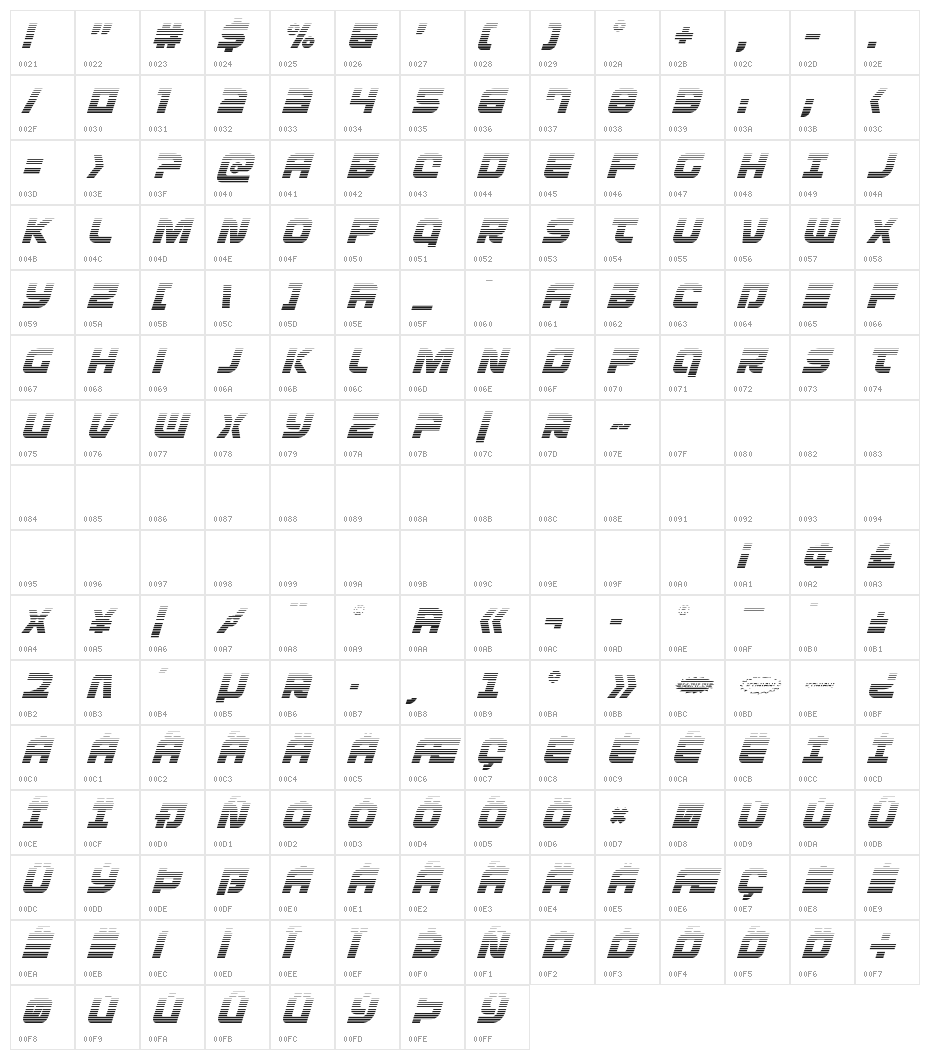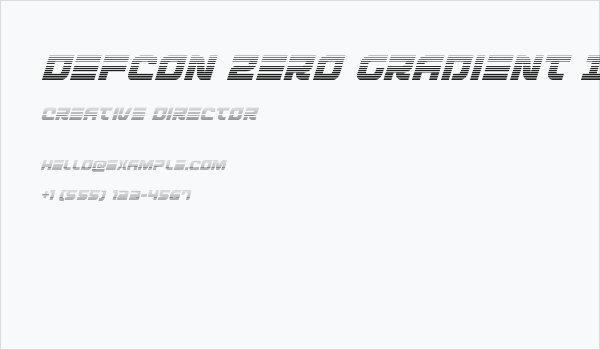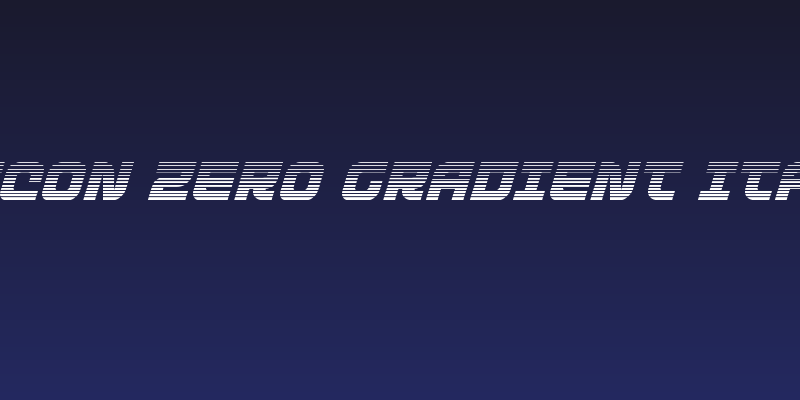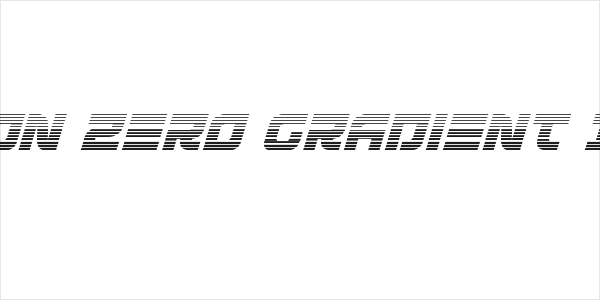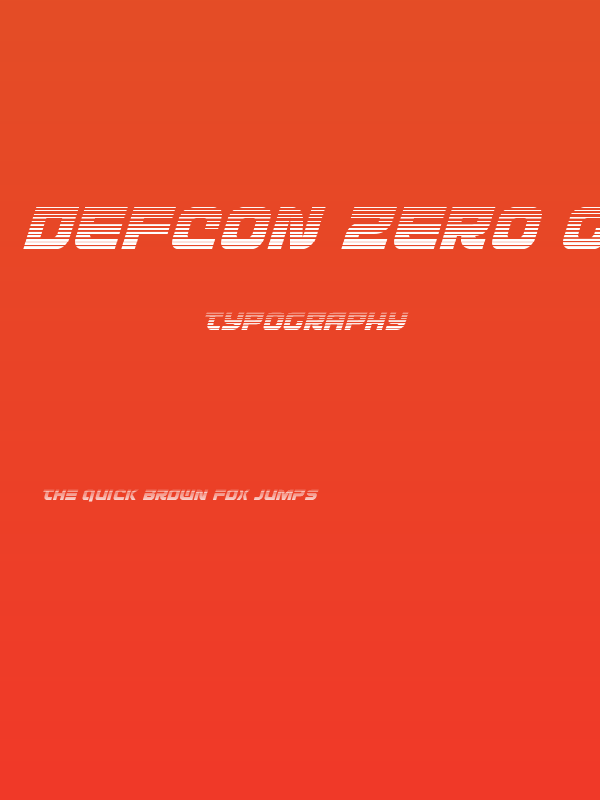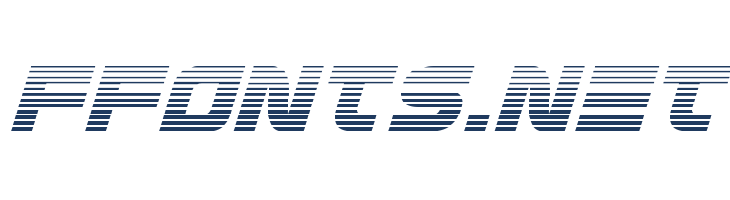
Defcon Zero Gradient Italic Font
Defcon Zero Gradient Italic Description
This font features a dynamic and futuristic design with a distinctive gradient effect. The characters are italicized, giving a sense of motion and speed. Each letter is composed of horizontal lines that create a striped appearance, enhancing the modern and digital aesthetic. The uppercase and lowercase letters maintain a consistent style, with sharp angles and clean lines. Numbers and special characters are designed to match the overall theme, ensuring uniformity across all glyphs. This font is ideal for projects that require a bold and contemporary look, such as technology-related branding or digital media.